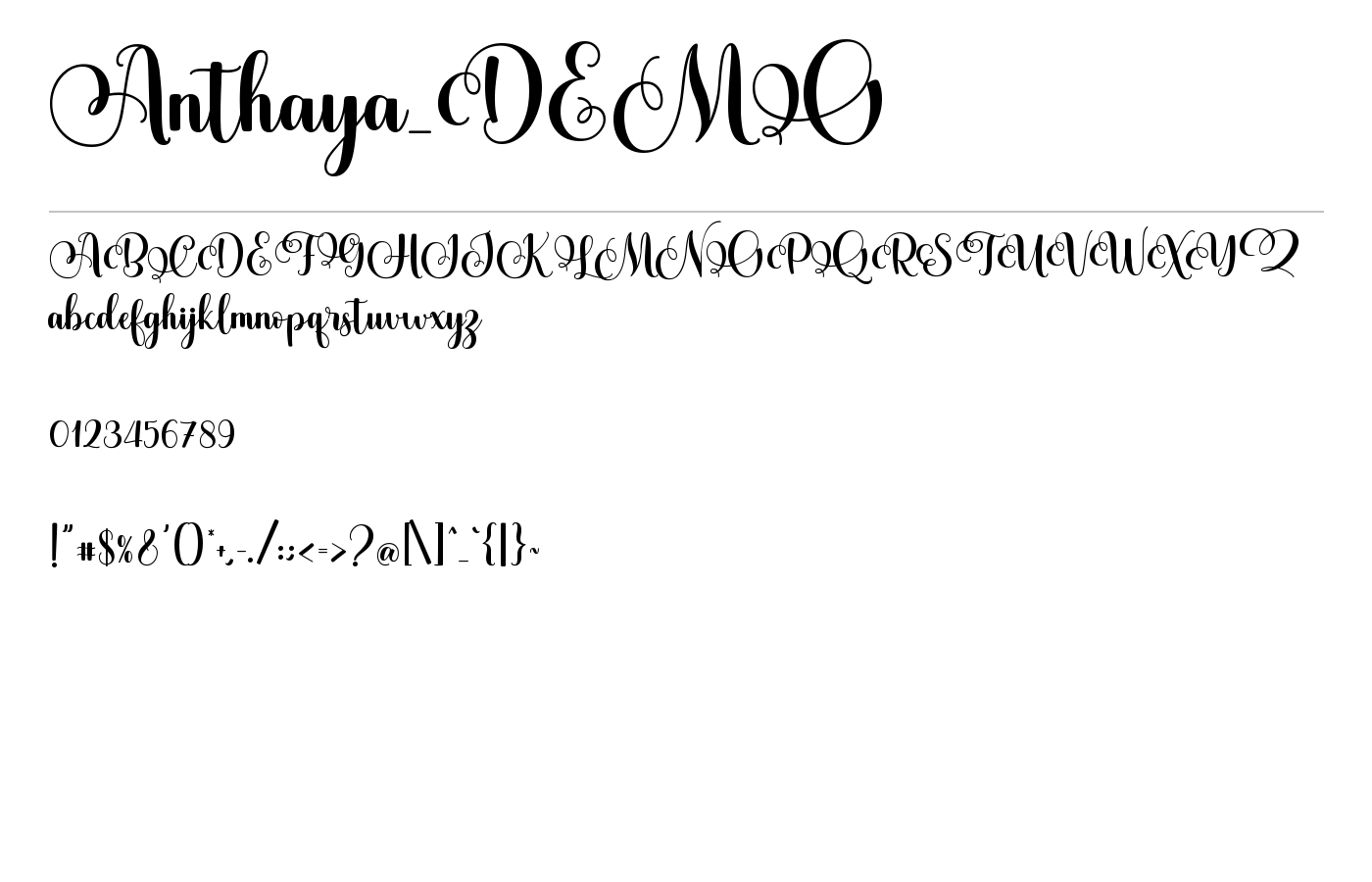
Anthaya_DEMO is an elegant script font featuring high contrast between thick and thin strokes, with flowing, decorative swashes that create a luxurious and sophisticated feel. Its tall, narrow letterforms and ornate uppercase letters make it perfect for upscale branding, invitations, and headlines where a refined, artistic touch is desired. This font works best in designs that need a graceful, formal appearance, adding charm and elegance to fashion, beauty, and event-related projects.
Anthaya_DEMO Font
About Anthaya_DEMO Font